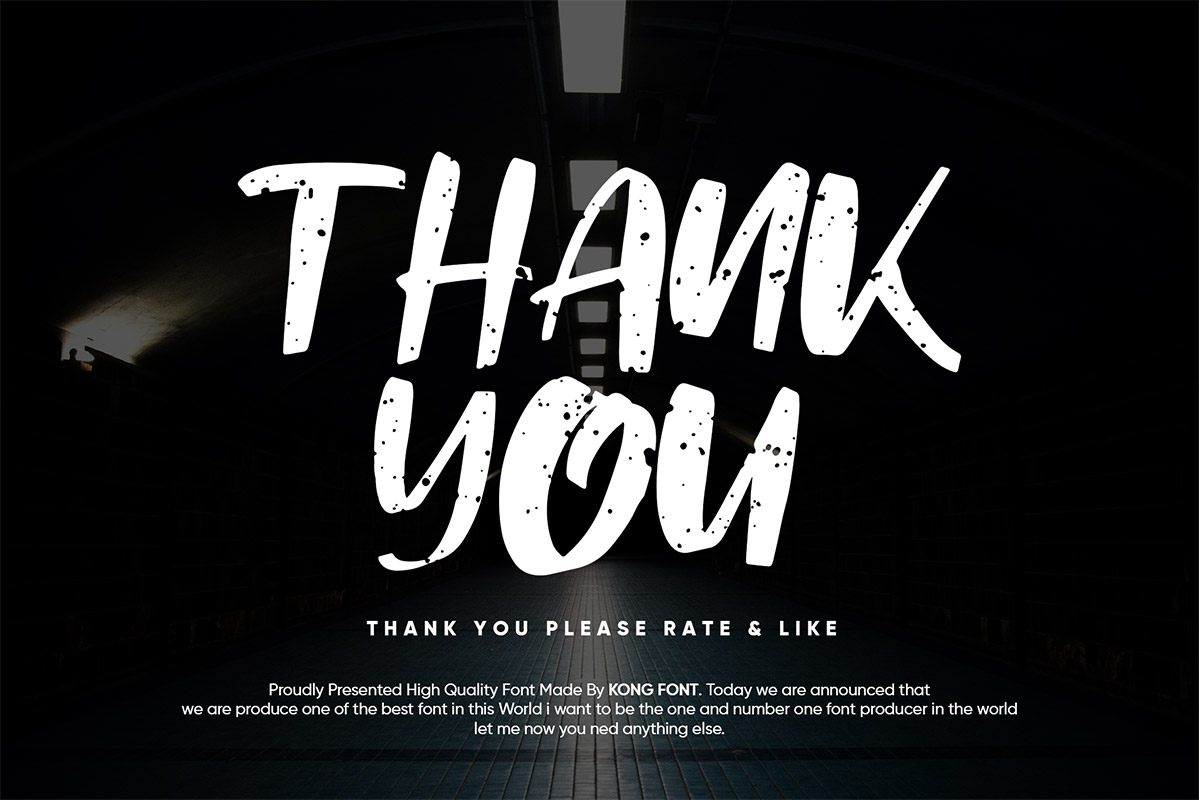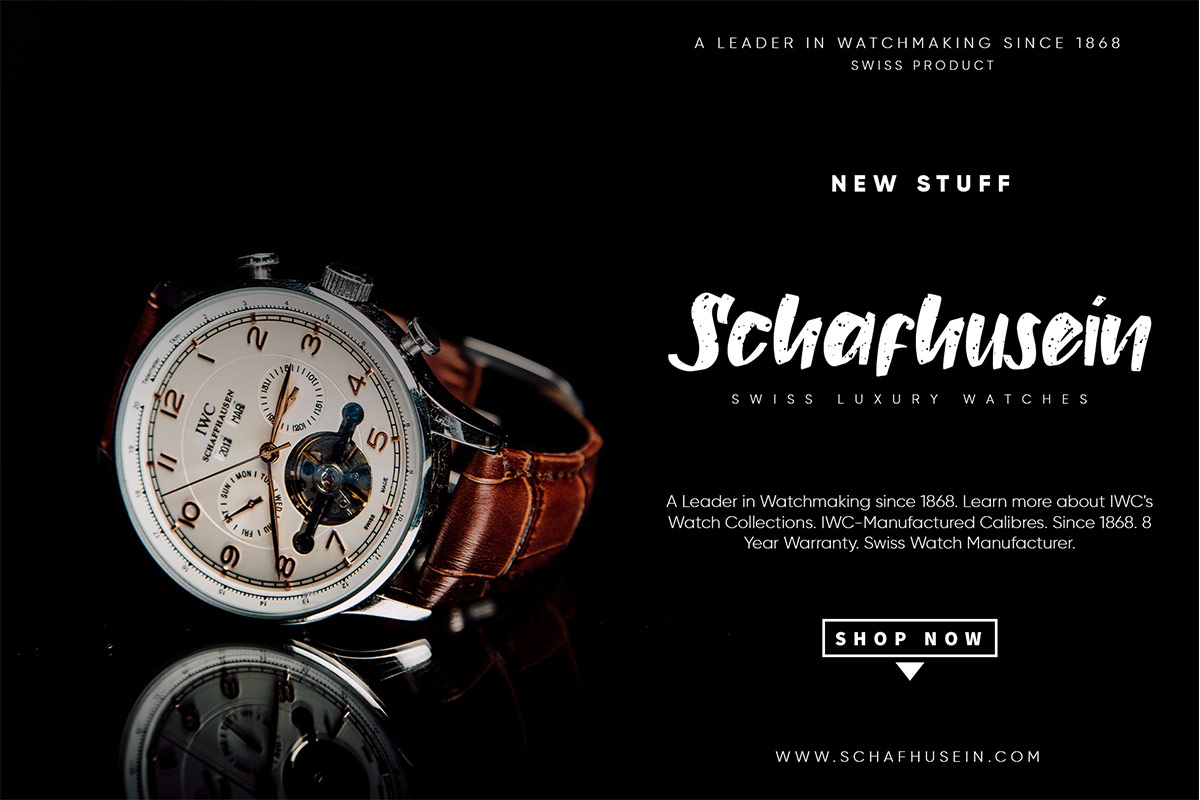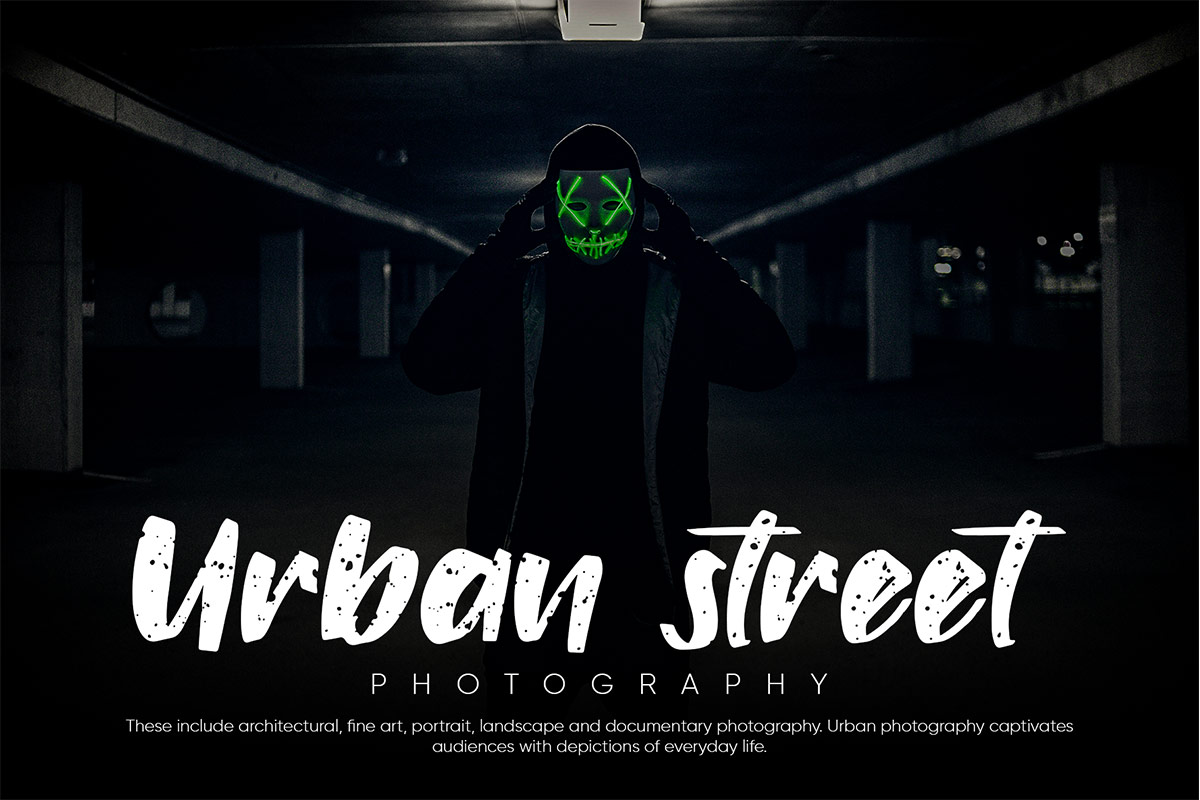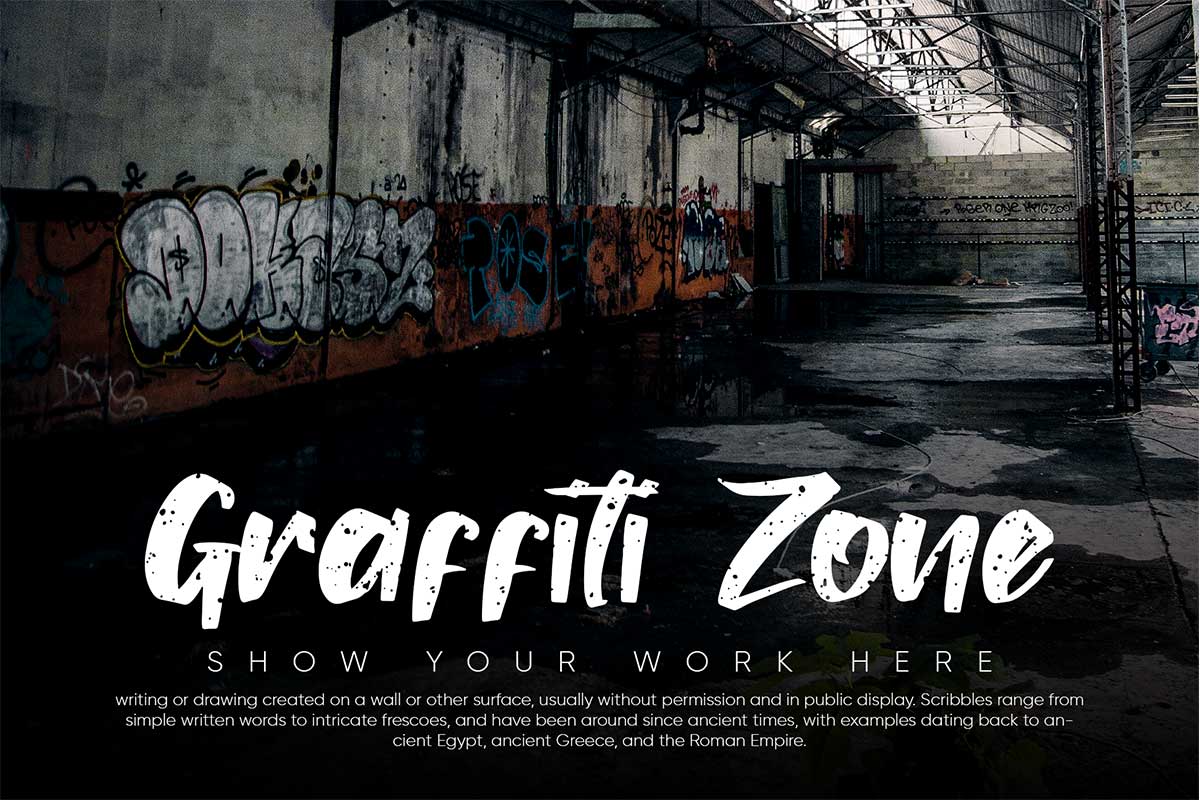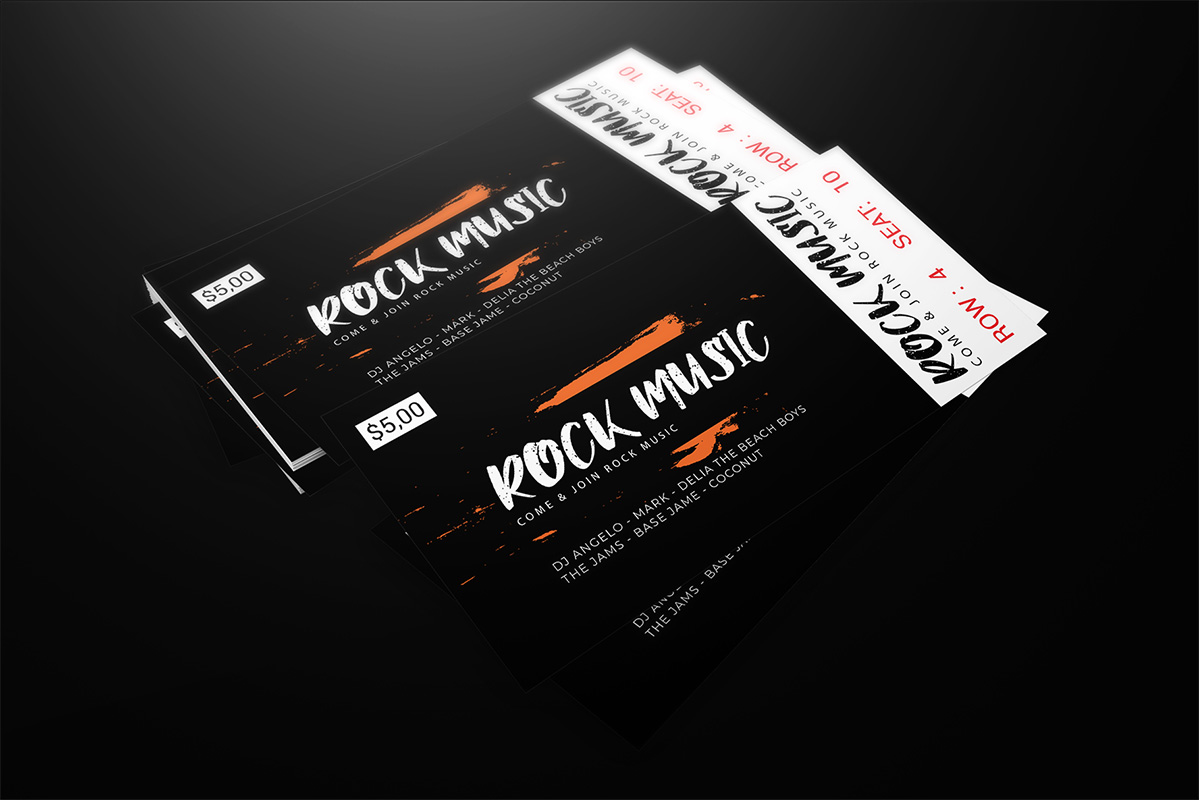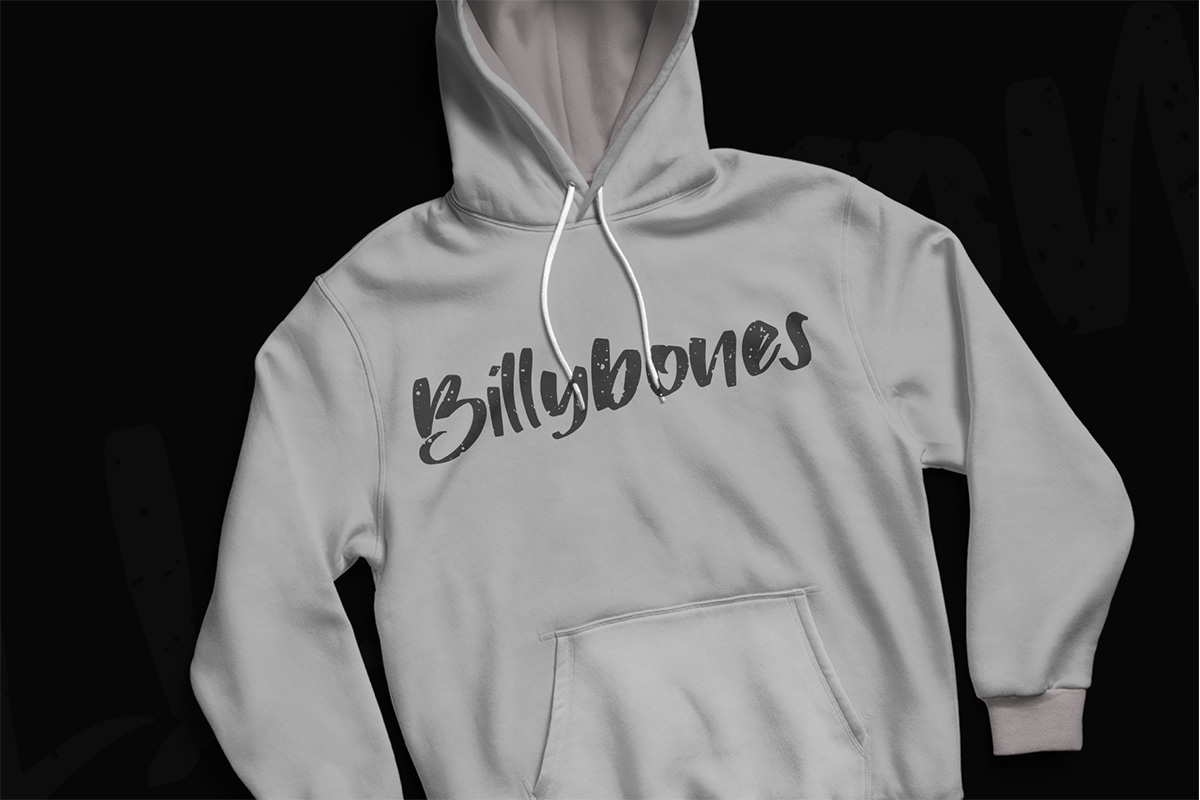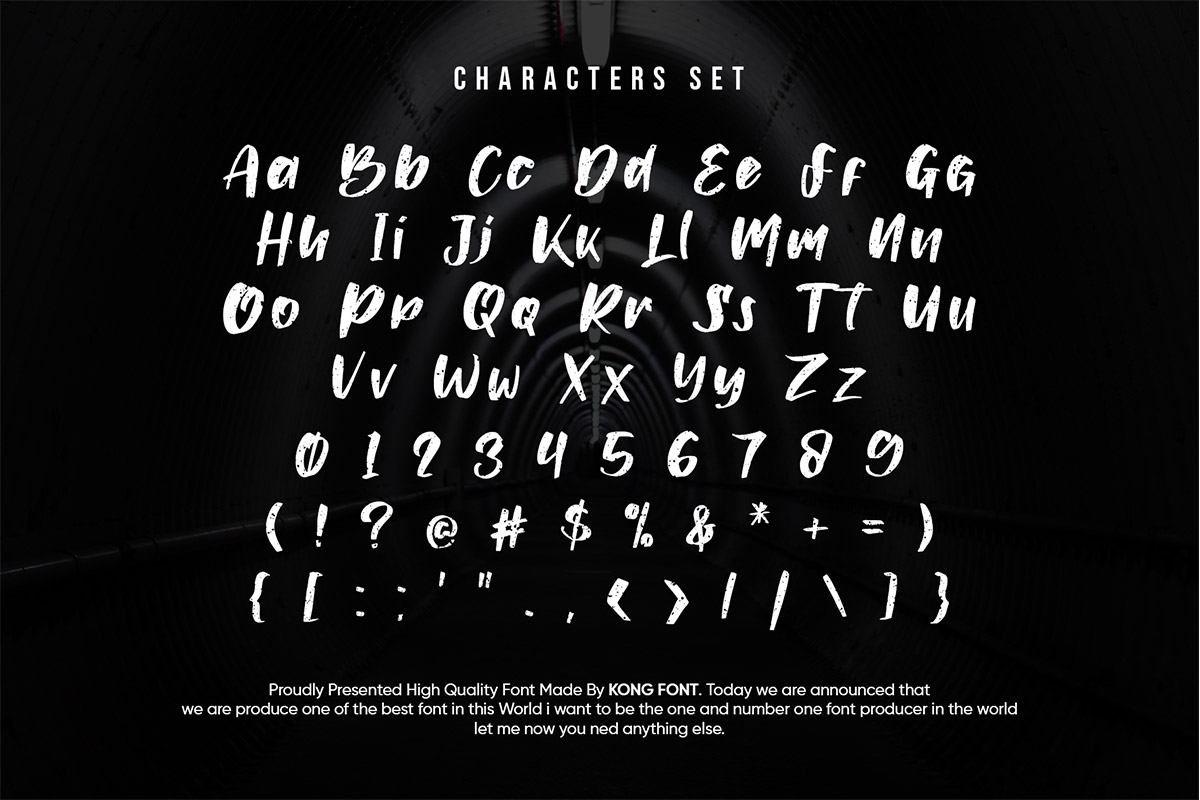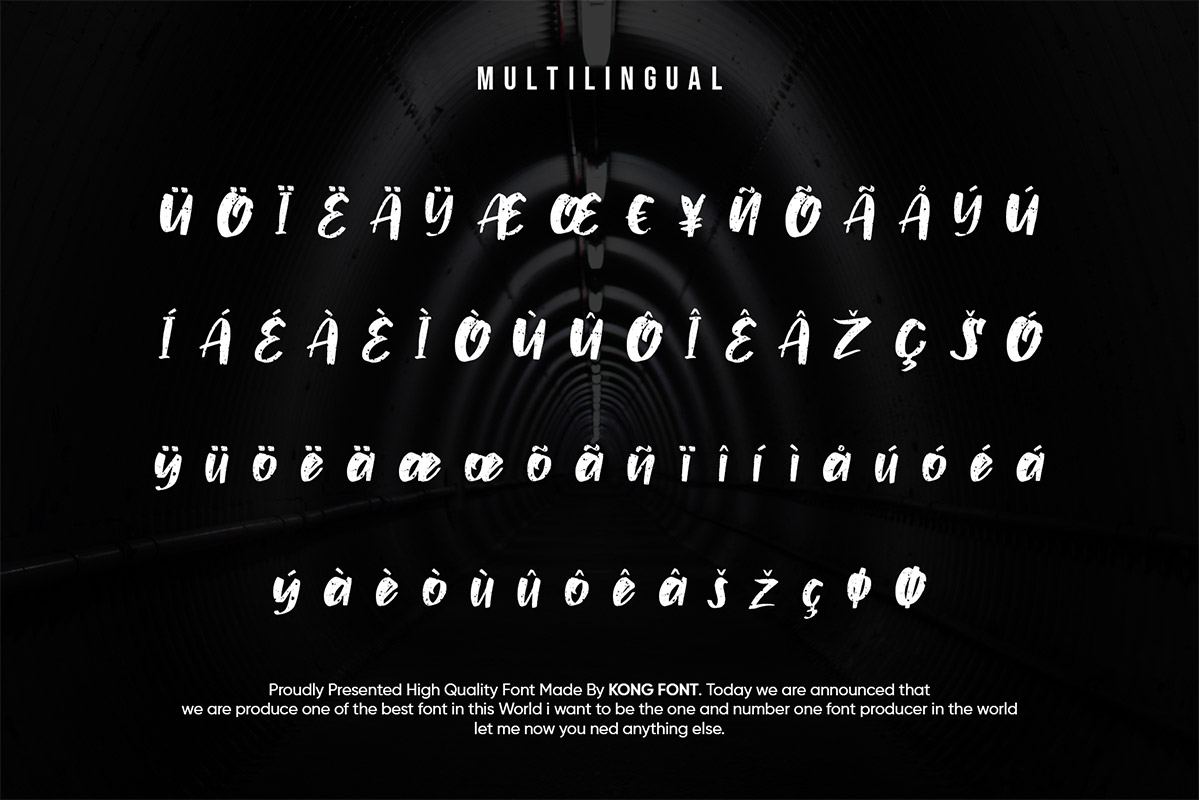
Livermore Font Livermore Handbrush Typeface is the name given to this eye-catching display font. This font comes with a modern, simple, and clean look. Not accompanied by excessive curves or additions, he is still charming and able to seduce every pair of eyes that see him. Livermore Handbrush Typeface looks like it was written using a thick brush, so this font is also bold. Livermore Handbrush Typeface can be applied to event titles such as skateboarding. This font can use as a digital font such as movies, intros, and outro videos. This font is able to contribute to building a modern impression on everyone who sees it. Apart from being digital, it can also use on hoodies, jackets, and other clothing design items. Apart from the things mentioned above, Livermore Handbrush Typeface can be used to write on the title of a brochure that contains a promotion for a product. This strong font character can make people know the brochure's contents by looking at the title and the font used. This font can use as a sign for a place or event. Our Display collection is compatible to use as; Figma fonts, Canva fonts, Freepik Fonts, and Adobe Fonts. They also work as Windows Fonts and Apple Fonts. For your social media needs, you can use and install fonts in our collection of Espot & Futuristic fonts to use as Instagram Fonts, Facebook Fonts, and Twitter Fonts.